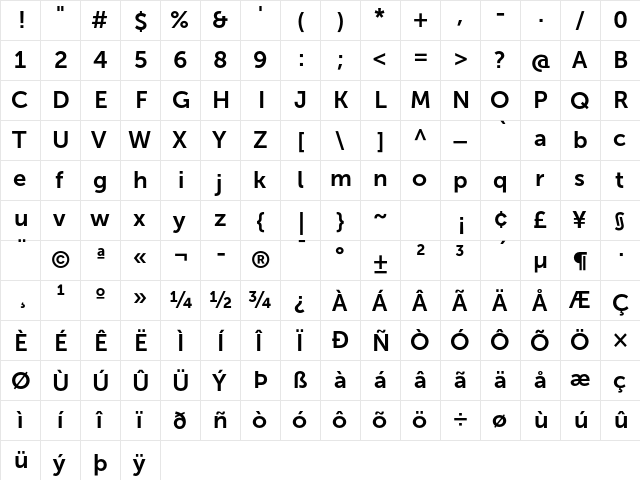
Museo Sans 700
| Foundry | Jos Buivenga |
| Designer | Jos Buivenga |
Design Context for Museo Sans Typeface
Museo Sans is a composed and adaptable typeface that performs quietly and consistently across a wide range of design contexts.